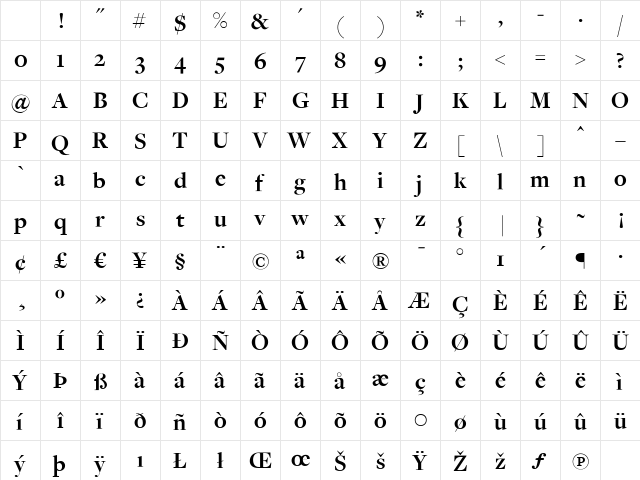
Complete FreightDispBold Regular glyph index. Displaying only characters natively supported by FreightDispBold Regular font.
FreightDispBold is a composed and adaptable typeface that performs quietly and consistently across a wide range of design contexts. Its bold stroke weight gives it real presence on the page.